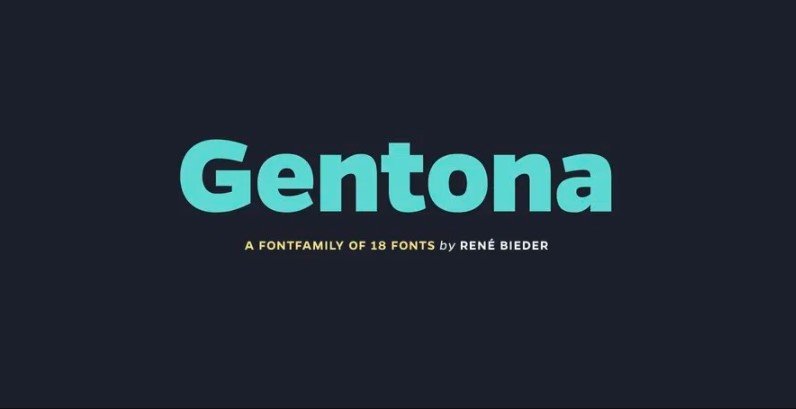
We are offering the excellent sans serif typeface known as Gentona Font, which is acclaimed as one of the best typefaces of all time. This font boasts features that make it ideal for a variety of products and numerous design projects.
The typeface also contains geometric designs that have eye-catchy and more readable content design that will make all types of great projects easily and efficiently.
Here we provide an image that includes the characters and letters of this beautiful font which is best to use with wild youth font, you can perceive it by viewing on the image and get an idea how delightful it is.
The font was designed by developed for High Resolution or HD images. You can creates large project with this typeface.
This unque and elegant font that looks like wakanda font which has a popular texture so that can also be used in pairing also.
• Vehicle wraps
• Museum exhibitions
• Public transportation navigation
• Game interfaces
• Magazine and newspaper ads
• Title sequences and end credits
Designer René Bieder
What’s the Closest Font to Gentona?
The Sugo Pro Classic Font is very close to the Gentona Font.